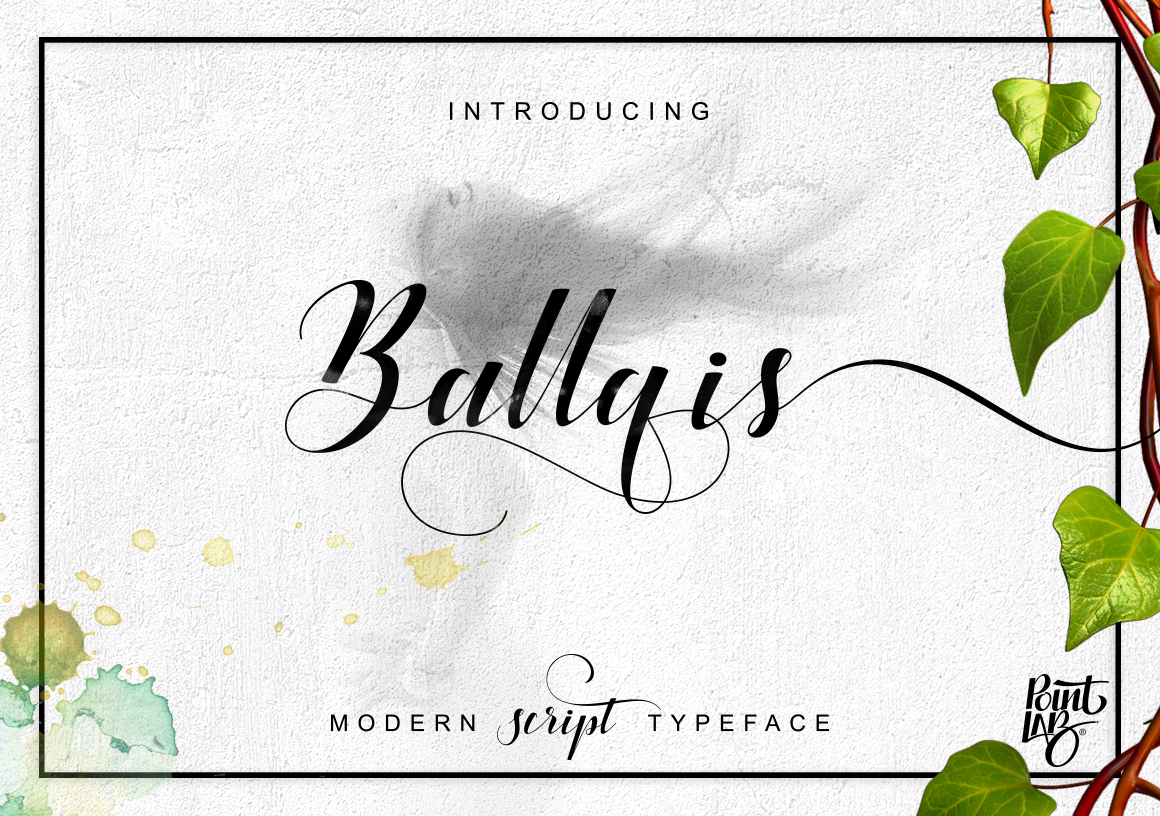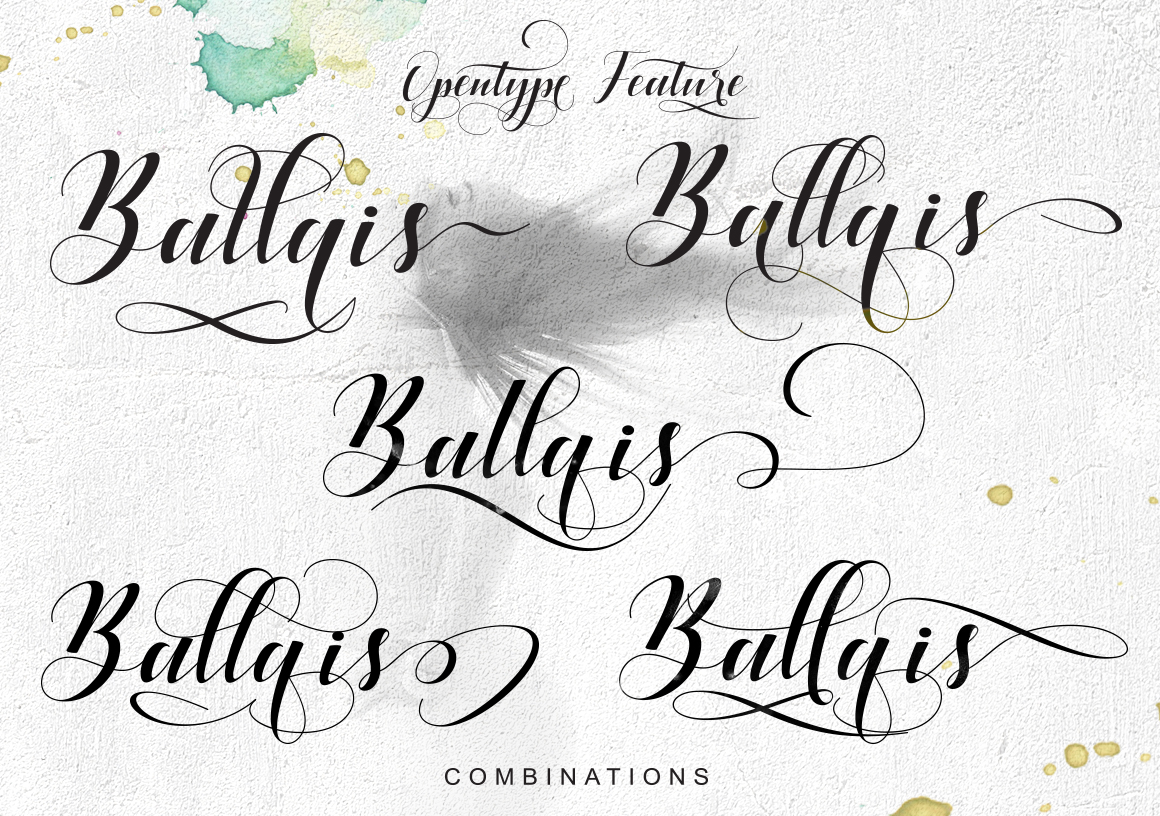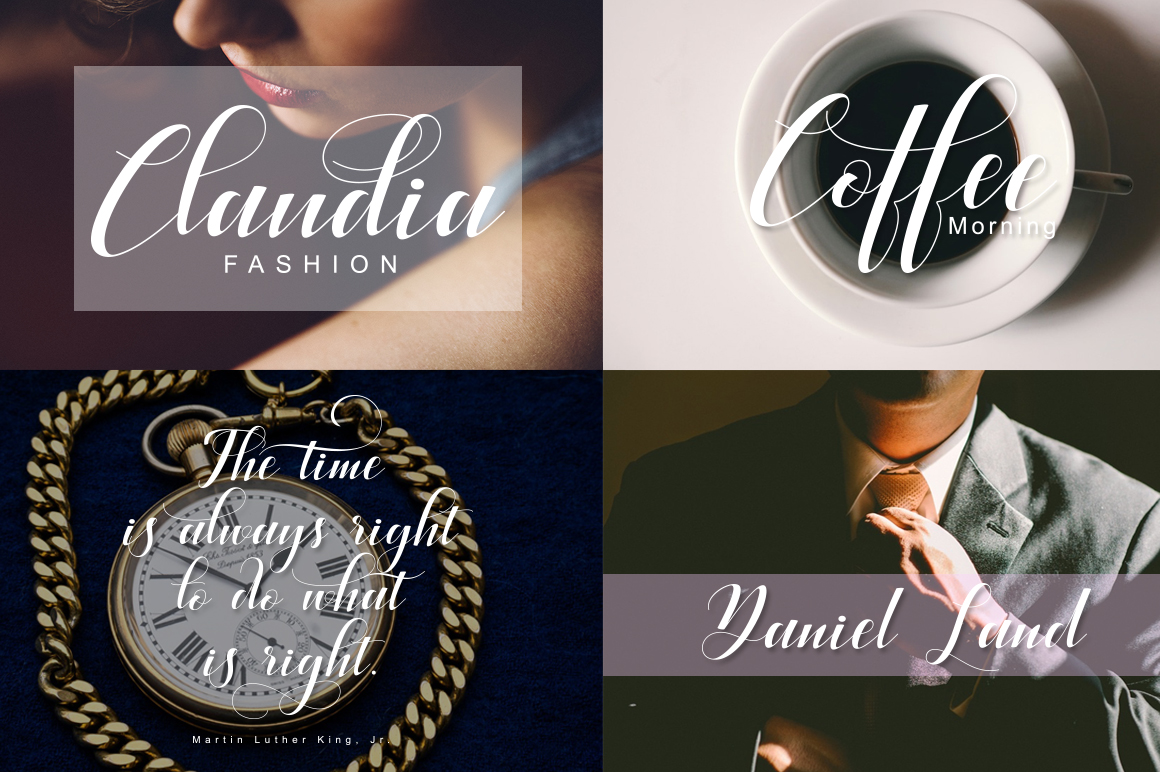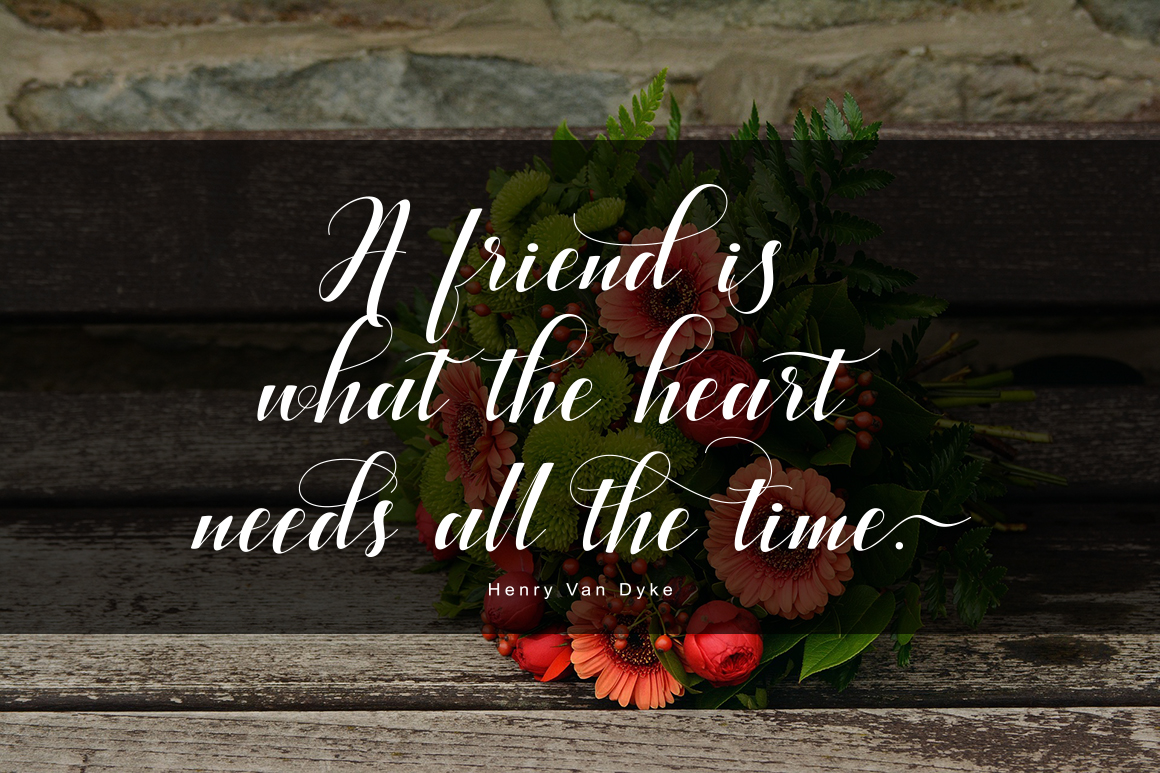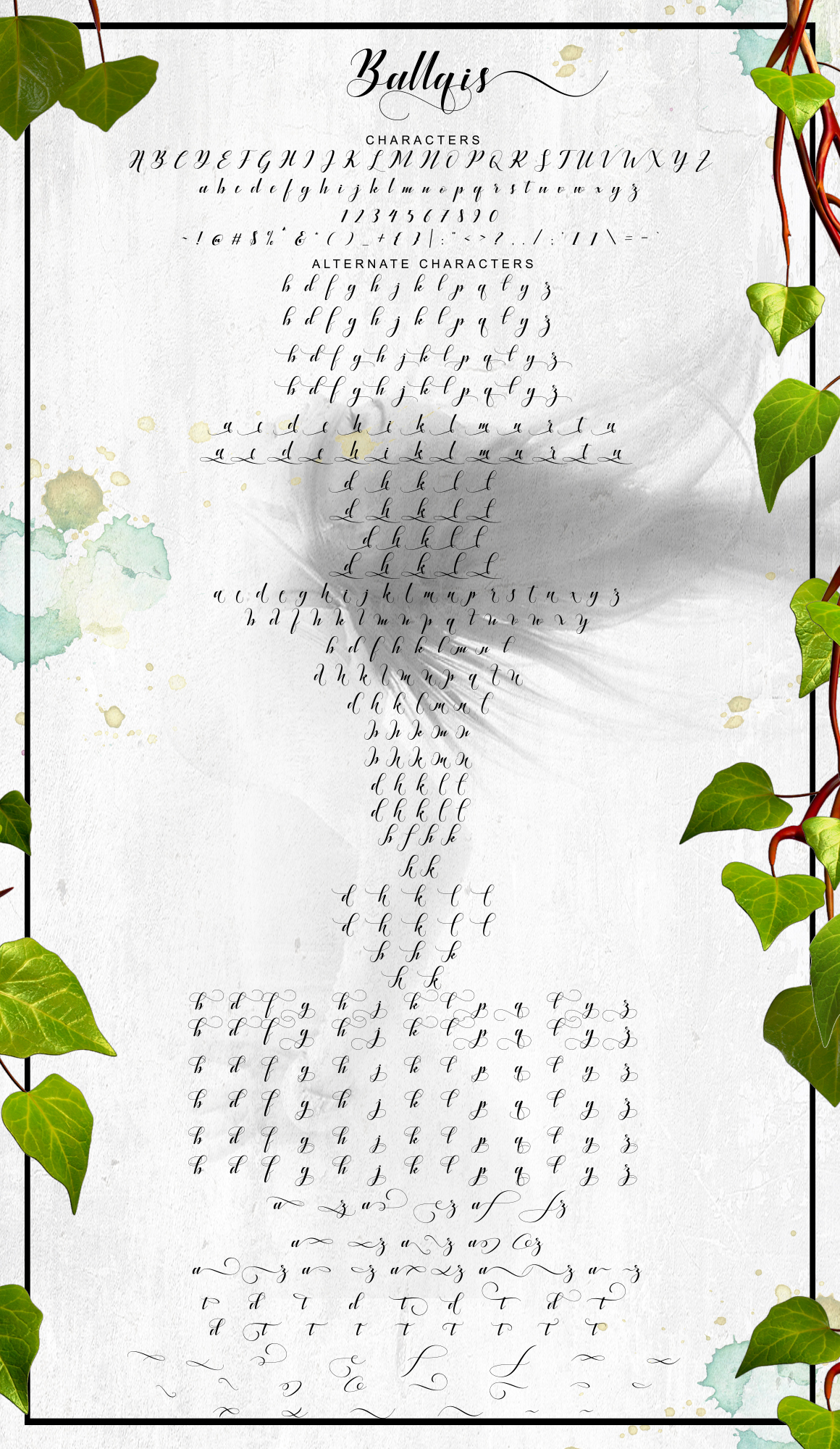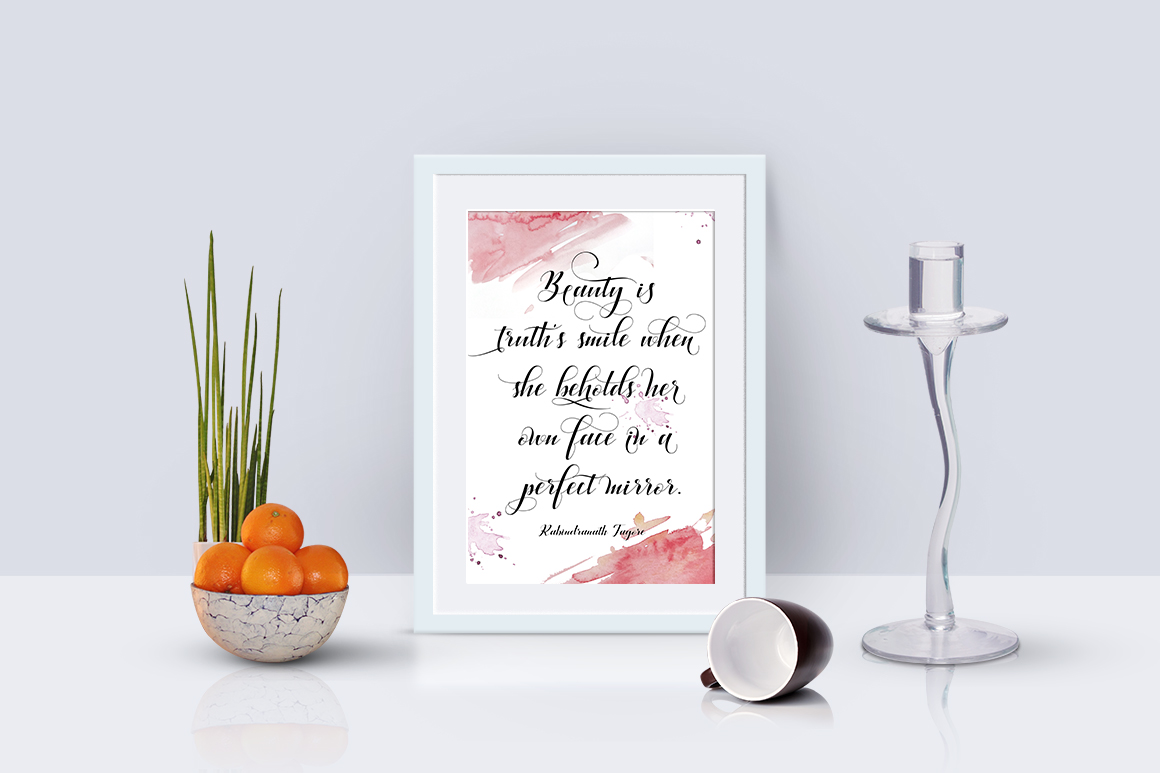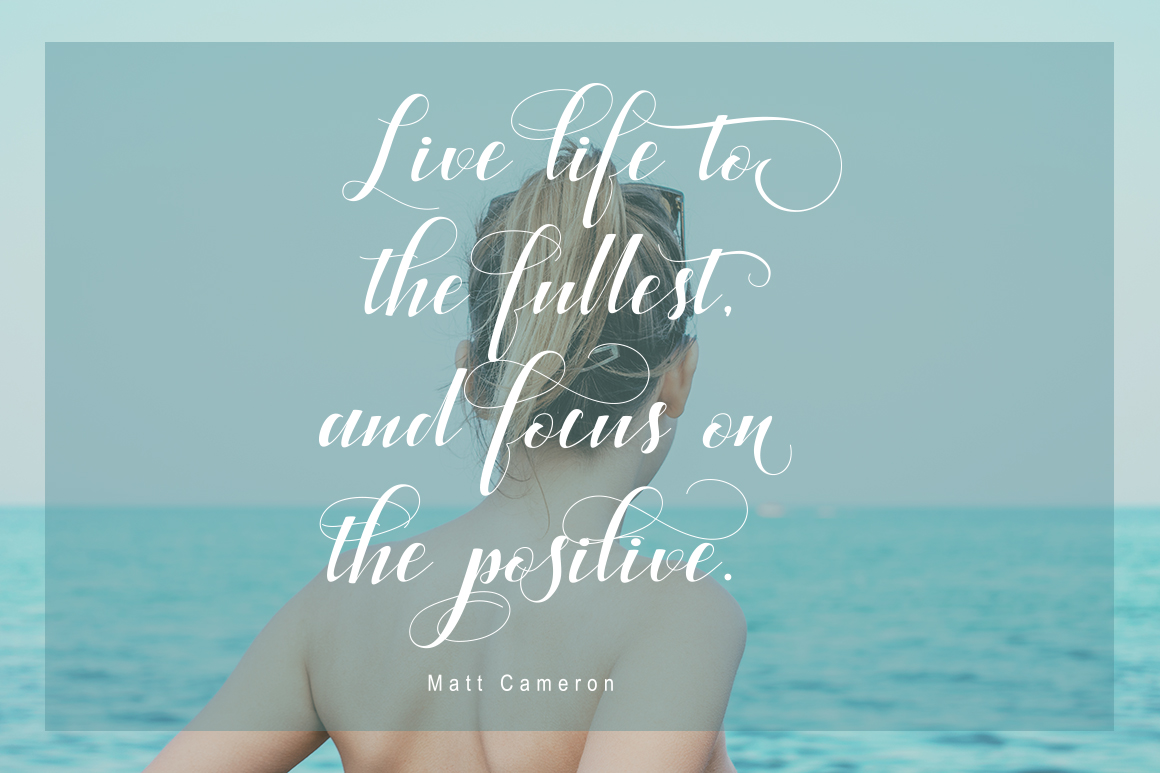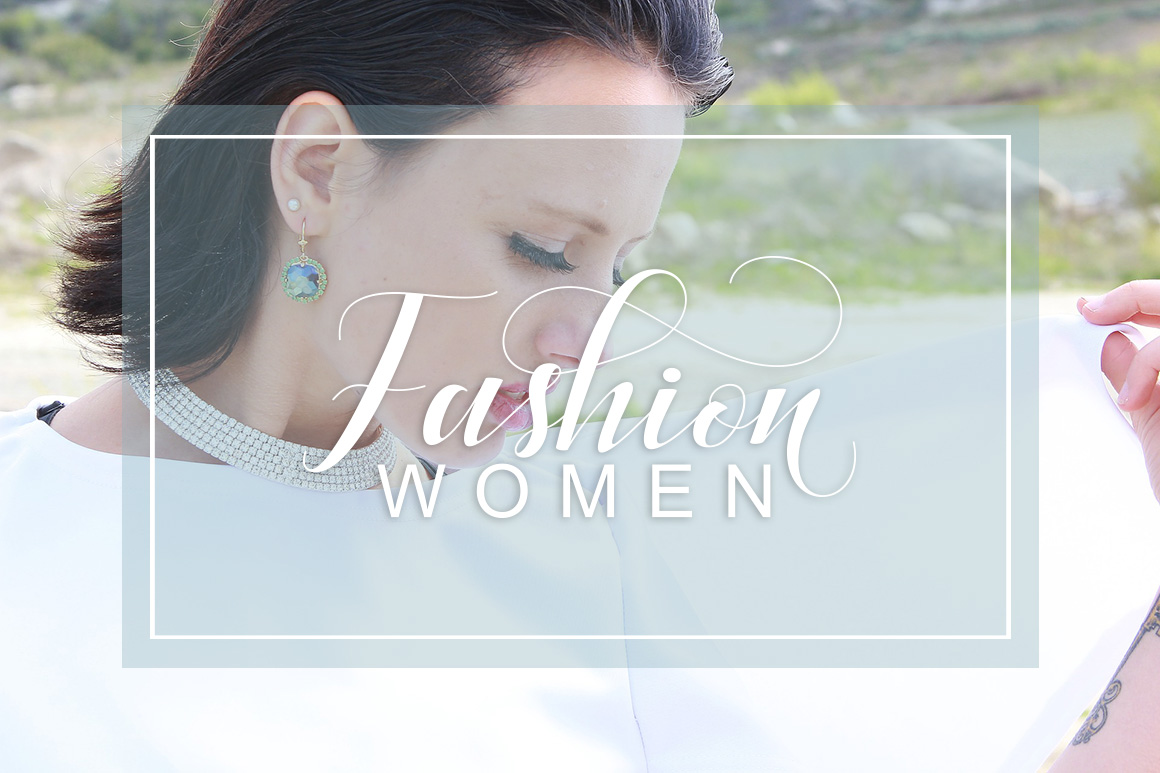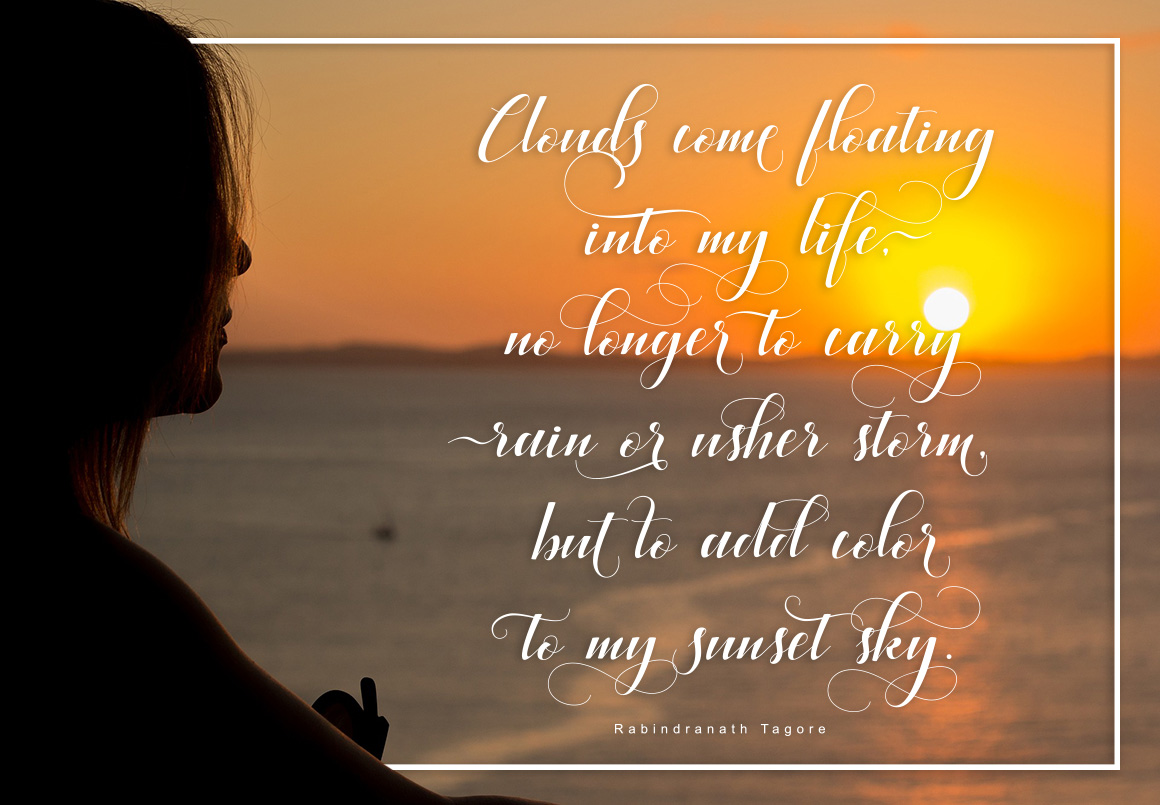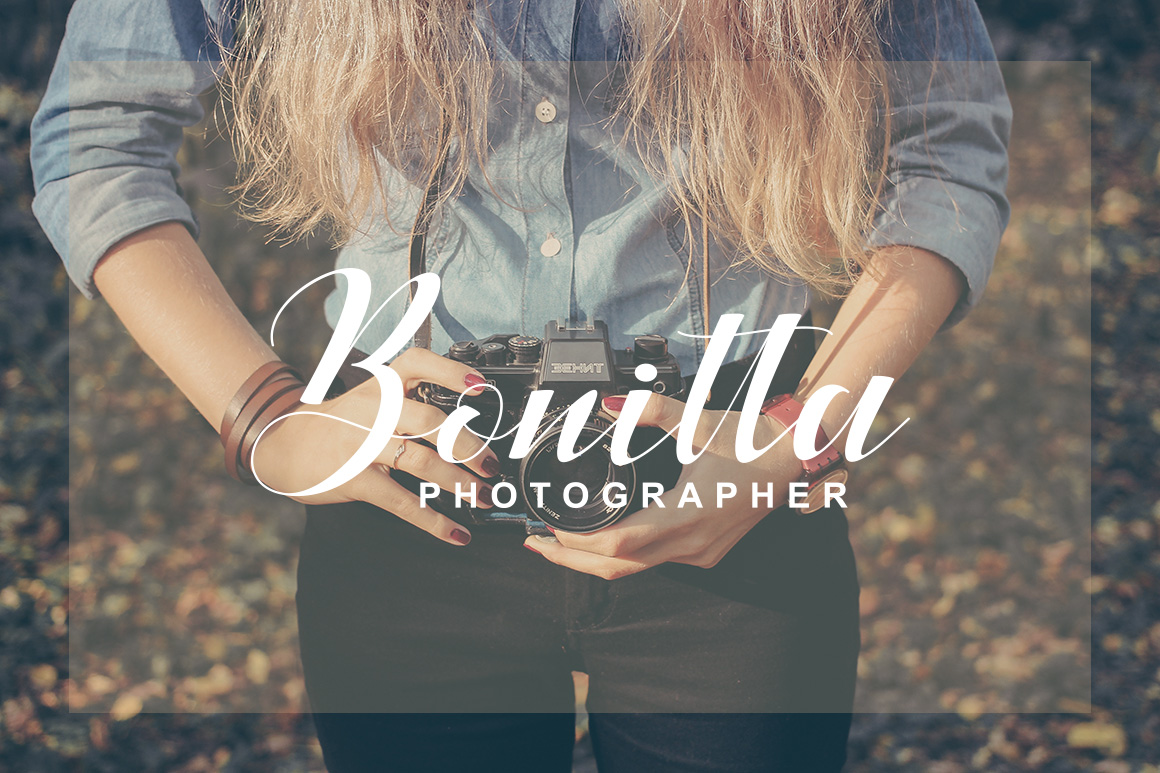
Ballqis Font
About Ballqis Font
Ballqis is a script that ocmes with more than 1100 glyphs, making it a robust yet elegant and refined script font. With decorative characters and a dancing baseline, Ballqis is a great font to use when you want to add a touch of class to your designs.